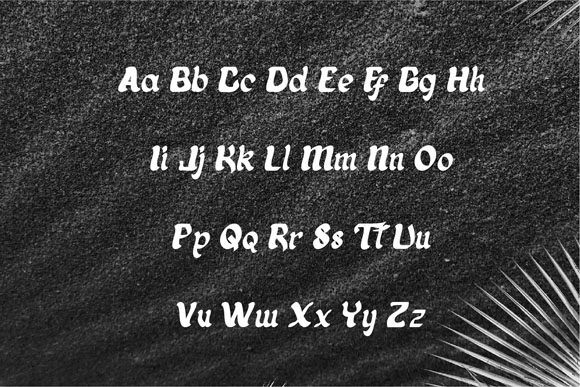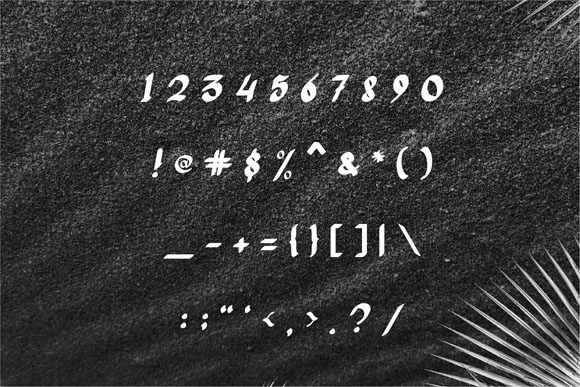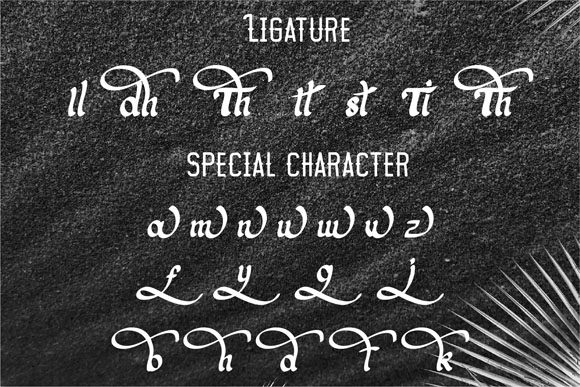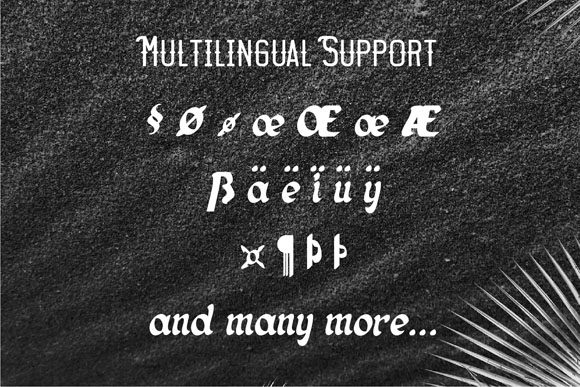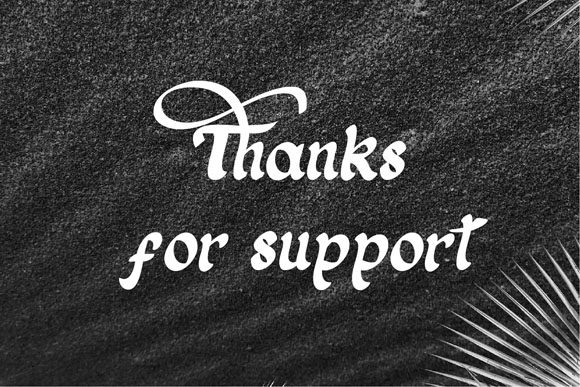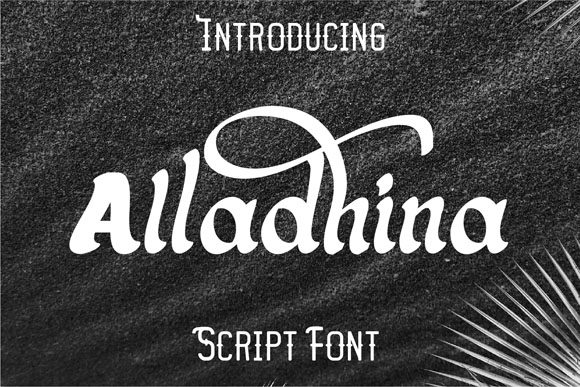
Introducing Alladhina Font: The Ultimate Game-Changer for Designers and Crafters
Are you tired of using the same old fonts in your design projects? Look no further! Alladhina Font is here to revolutionize the way you approach typography. This fun and cool handwritten font is packed with an amazing feel that will instantly elevate your designs and make them stand out from the crowd.
The Allure of Alladhina Font
Alladhina Font is a carefully crafted handwritten font that exudes a sense of playfulness and sophistication. Its unique charm lies in its ability to add a personal touch to any design project, making it perfect for designers and crafters who want to create something truly special. Whether you’re working on a logo, branding materials, or social media graphics, Alladhina Font is sure to make a lasting impression.
What Makes Alladhina Font So Special?
- Unique Character Set: Alladhina Font boasts an extensive character set that includes uppercase and lowercase letters, numbers, and special characters. This ensures that you have everything you need to create stunning designs.
- Handwritten with Love: The font’s handwritten style gives it a warm and inviting feel that’s perfect for designs that require a personal touch.
- Highly Versatile: Alladhina Font can be used in a wide range of design projects, from digital graphics to print materials.
- Easily Readable: Despite its creative and artistic style, Alladhina Font remains highly readable, making it perfect for body text and headings.
How to Use Alladhina Font in Your Design Projects
Using Alladhina Font in your design projects is incredibly easy. Here are a few tips to get you started:
- Pair it with Other Fonts: Experiment with pairing Alladhina Font with other fonts to create stunning contrast and visual interest.
- Use it for Headings and Titles: Alladhina Font is perfect for headings and titles, where its creative and artistic style can really shine.
- Add it to Your Branding Materials: Use Alladhina Font to create unique and memorable branding materials, such as logos, business cards, and letterheads.
Why Designers and Crafters Love Alladhina Font
Alladhina Font has quickly become a favorite among designers and crafters, and for good reason. Here are just a few reasons why:
- Time-Saving: With Alladhina Font, you can create stunning designs in a fraction of the time it would take with other fonts.
- Easy to Use: The font’s simplicity and versatility make it easy to use, even for those with limited design experience.
- Unique Designs: Alladhina Font allows you to create unique and eye-catching designs that will set you apart from the competition.